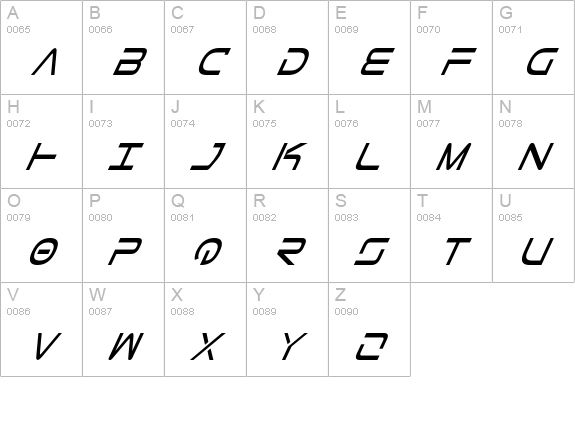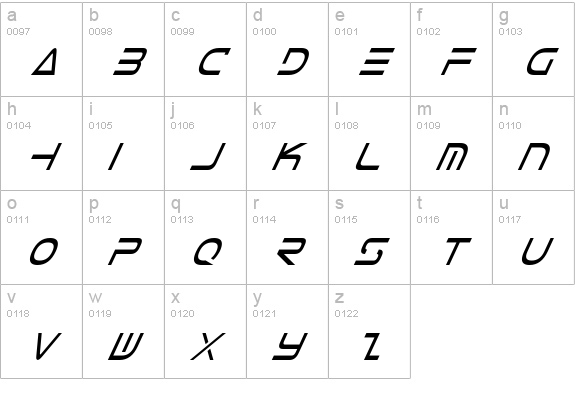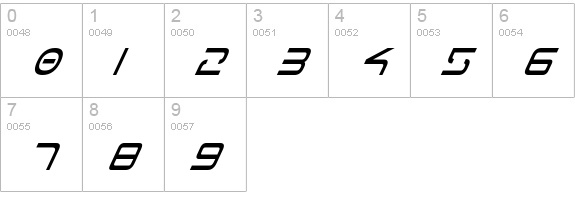
Tele-Marines Condensed Italic Font Details
Tele-Marines Condensed Italic is a distinctive, condensed-width, italic variant in the Tele typeface family \xE2\x80\x94 well suited to design and typography projects.
Tele-Marines Condensed Italic font is a modern and sleek typeface that exudes elegance and sophistication. Its condensed design allows for maximum impact, making it perfect for headlines, titles, and any other attention-grabbing text. The italic styling adds a touch of flair and dynamism, making this font ideal for projects that require a bold and stylish look. With its clean lines and smooth curves, Tele-Marines Condensed Italic font is sure to make a lasting impression. Whether used in print or digital media, this font will elevate your designs to new heights. Its versatility makes it suitable for a wide range of applications, from branding and advertising to packaging and web design. But what sets Tele-Marines Condensed Italic font apart is that it is completely free. Yes, you read that right! This high-quality font is freely available to download at FontsMarket.com. You can access this font without any cost and use it in your personal and commercial projects with ease. Downloading Tele-Marines Condensed Italic font is a simple and seamless process. Just visit FontsMarket.com and navigate to the font's page. From there, you can download the font file and start using it immediately. The font is available in various formats, ensuring compatibility with different design software and platforms. So why wait? Enhance your designs with the captivating Tele-Marines Condensed Italic font today. Download it for free at FontsMarket.com and unlock a world of possibilities for your creative endeavors.